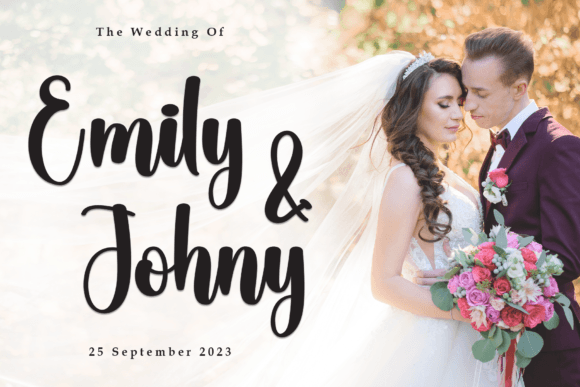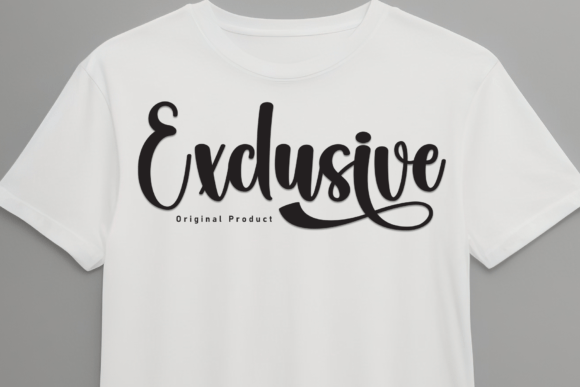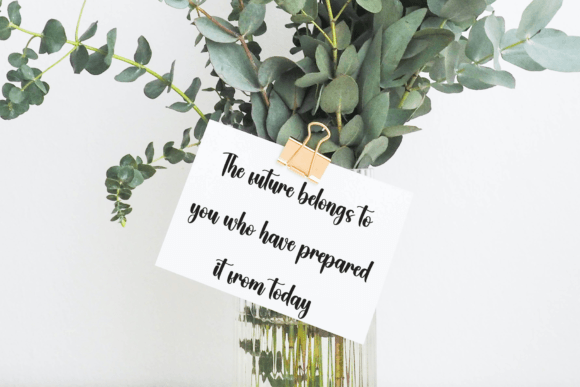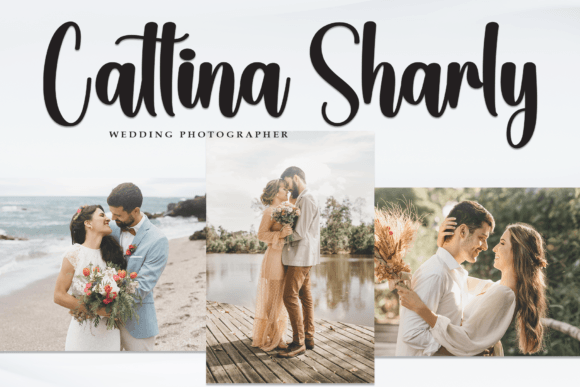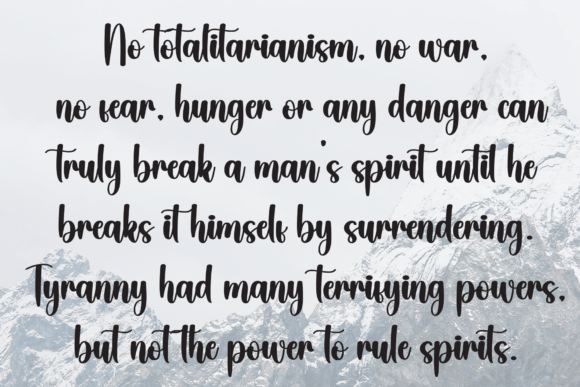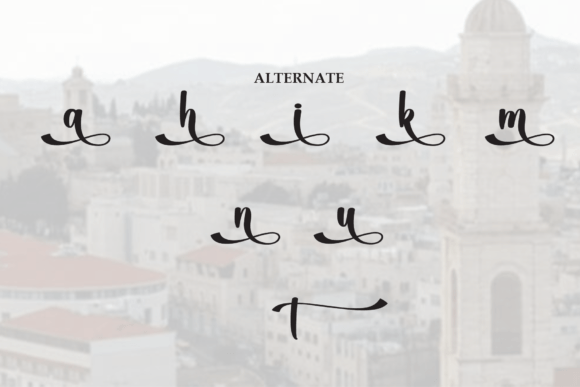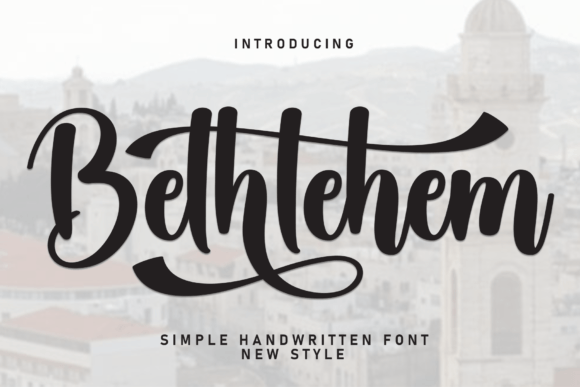
The Sweet Spot: Discovering the Charm of Bethlehem Font
I’ll never forget the moment I stumbled upon the Bethlehem font. I was working on a project for a client’s Christmas card, and I was on a mission to find the perfect handwritten font that would capture the warmth and magic of the season. As I scrolled through my font library, I felt like I was on a treasure hunt, and then – Bethlehem appeared! Its sweet, friendly curves instantly won me over, and I knew I had found the one. In this article, I’ll share my love for this beautiful font, its unique features, and how you can make the most of it in your designs.
- ✅ Unique and natural style: Bethlehem’s handwritten charm makes it perfect for a wide range of designs, from invitations to social media graphics.
- ✅ Elegant yet approachable: This font strikes the perfect balance between sophistication and friendliness, making it ideal for various creative projects.
- ✅ Highly versatile: Whether you’re designing for print or digital, Bethlehem adapts seamlessly to different formats and sizes.
- ⚠️ Legibility at small sizes: While Bethlehem is stunning at larger sizes, it may lose some legibility when scaled down. Make sure to test it at different sizes to ensure it works for your project.
- ⚠️ Overuse of swashes: While the font’s swashes and stylistic alternates are beautiful, using too many can make your design look cluttered. Balance is key!
Bethlehem font comes with a range of OpenType features, including stylistic alternates, swashes, and glyphs. These features allow you to customize your text and add a personal touch to your designs. To access these features, you’ll need to use a design app that supports OpenType, such as Adobe Creative Cloud or Canva.
| Feature | Description |
| Stylistic Alternates | Alternate characters that offer a fresh take on the original font. |
| Swashes | Decorative flourishes that add a touch of elegance to your text. |
| Glyphs | Special characters that can be used to add visual interest to your design. |
The Story Behind Bethlehem Font
Bethlehem font was designed with the intention of creating a warm, inviting typeface that would evoke a sense of comfort and joy. The designer aimed to craft a font that would be perfect for a wide range of creative projects, from holiday cards to social media graphics. With its unique blend of elegance and friendliness, Bethlehem has become a popular choice among designers and crafters.
Q: What makes Bethlehem font so special?
A: Bethlehem’s unique blend of elegance and friendliness makes it a versatile font that can be used for a wide range of designs.
Q: Is Bethlehem suitable for body text?
A: While Bethlehem is stunning as a display font, it may not be the best choice for body text due to its script nature. However, it can be used for short paragraphs or captions.